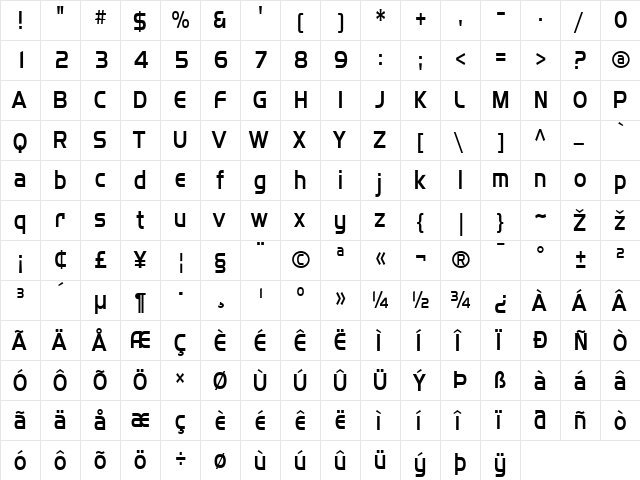
SF Fourche Condensed Regular
| Foundry | ShyFoundry |
| Designer | Derek Vogelpohl |
Design Context for SF Fourche Condensed Typeface
SF Fourche Condensed takes a measured approach to typography — its balanced proportions and neutral character make it a reliable workhorse for both digital and print work. Its narrow stance lets it pack a punch even in space-constrained designs.